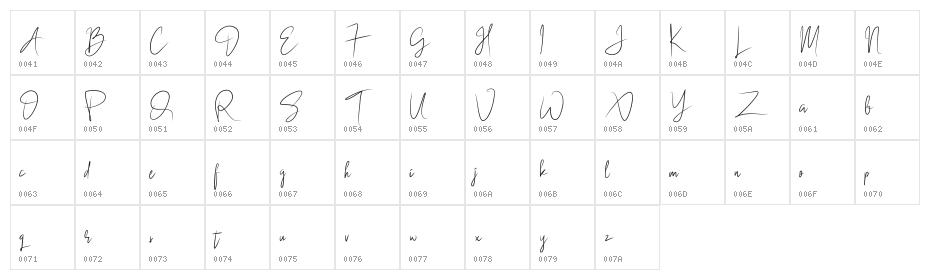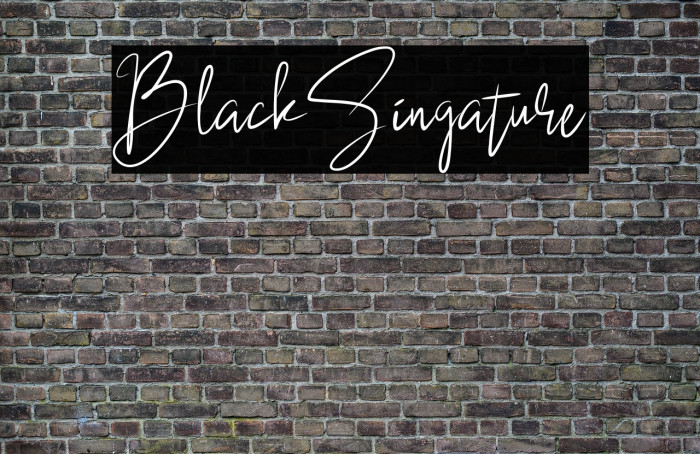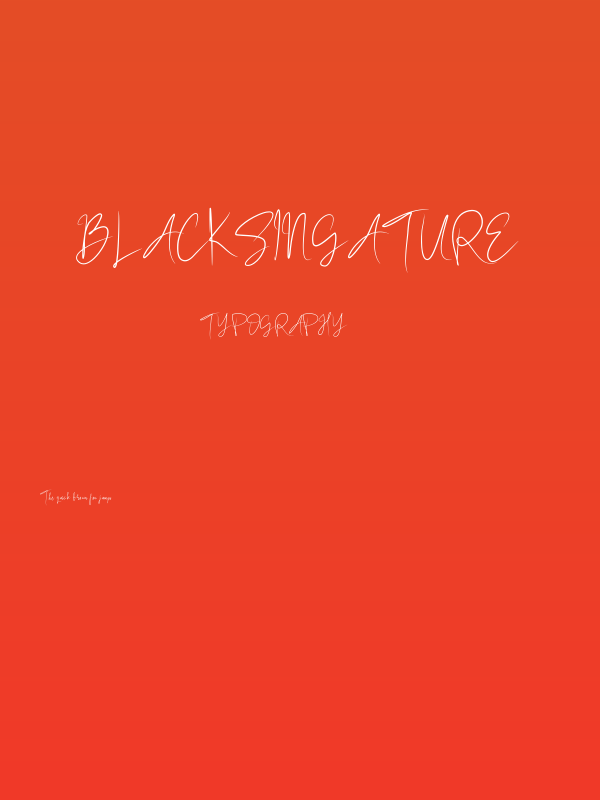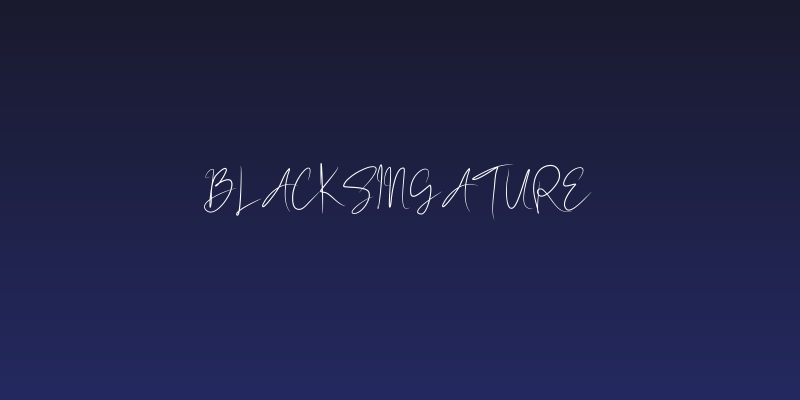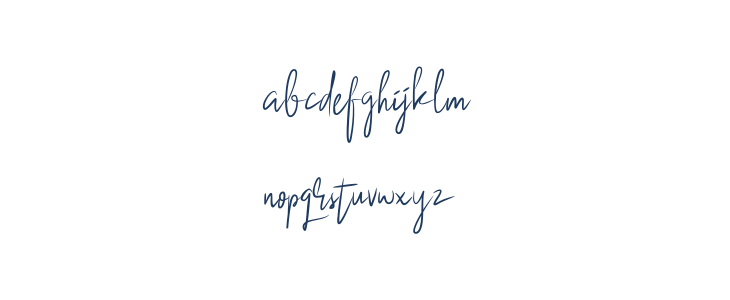
BlackSingature Font
BlackSingature Description
This font exudes a sophisticated and elegant style, characterized by its flowing, cursive script that mimics the fluidity of a handwritten signature. The uppercase letters are grand and sweeping, with elongated strokes that give a sense of motion and grace. The lowercase letters maintain a consistent flow, connecting seamlessly in a way that enhances readability while preserving the artistic flair. The overall appearance is both modern and timeless, making it suitable for a variety of design contexts. The font's thin strokes and high contrast between thick and thin lines add to its refined aesthetic, making it ideal for projects that require a touch of elegance and personal expression.
Use CaseLogos, Invitations, Branding
Proposed ProjectsIdeal for wedding invitations, personal branding, luxury product packaging, and elegant logo designs.